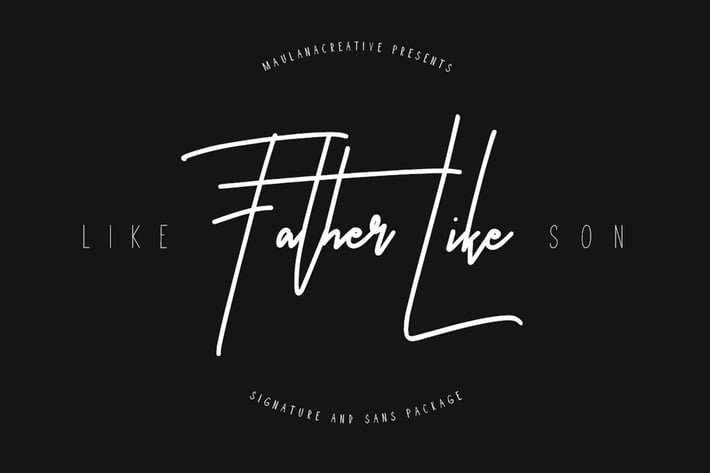
Like Father Like Son Typeface
Give your designs an authentic handcrafted feel. “Like Father Like Son Typeface” is perfectly suited to stationery, logos and much more.